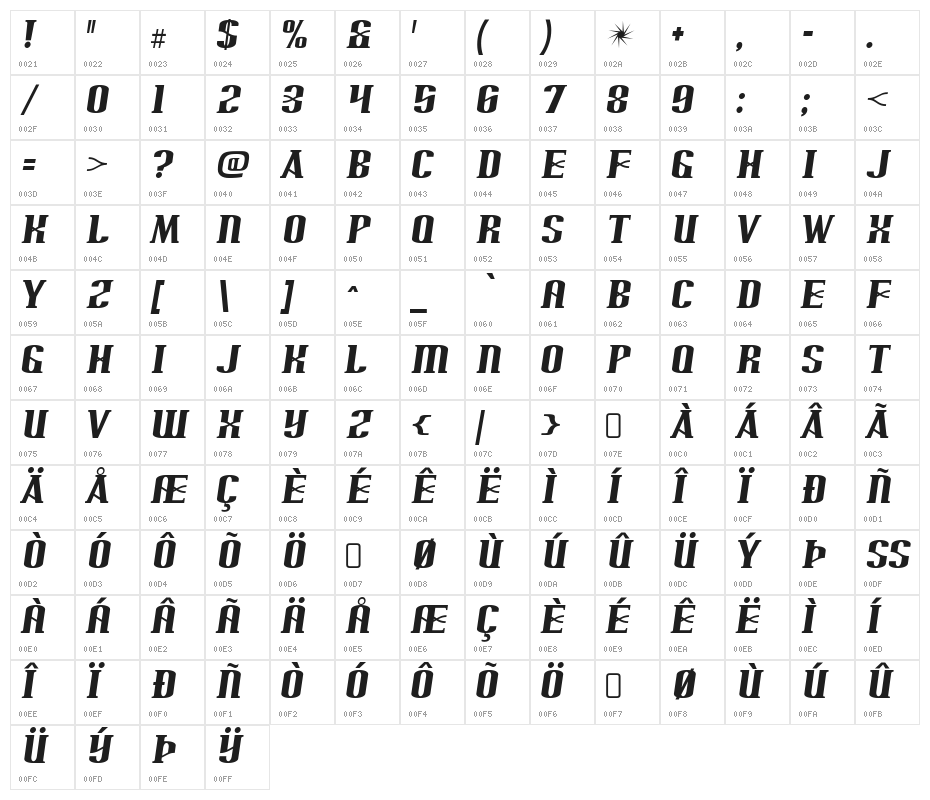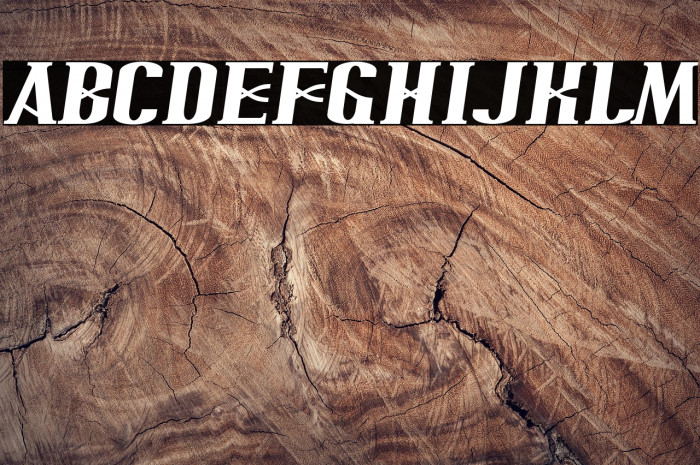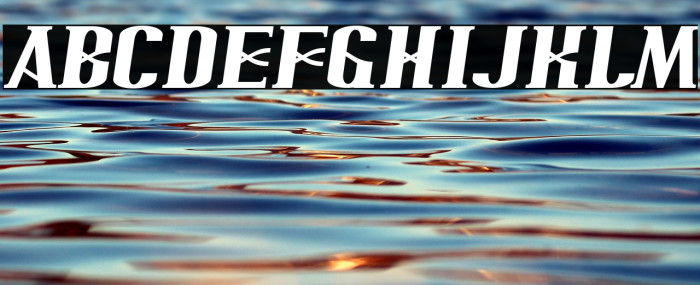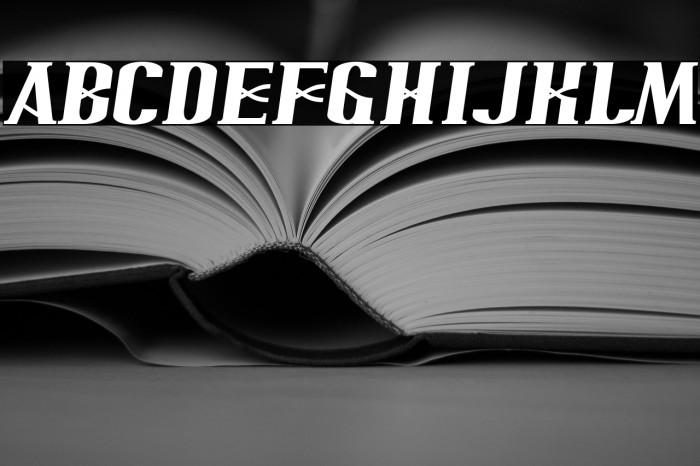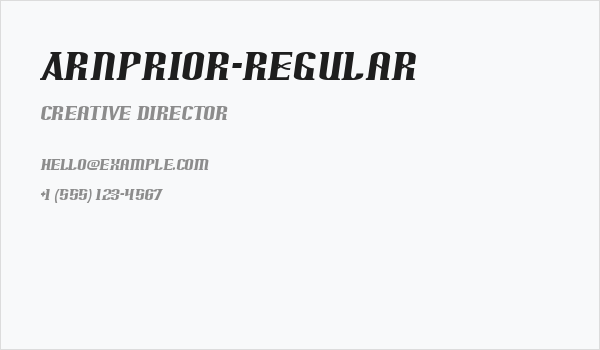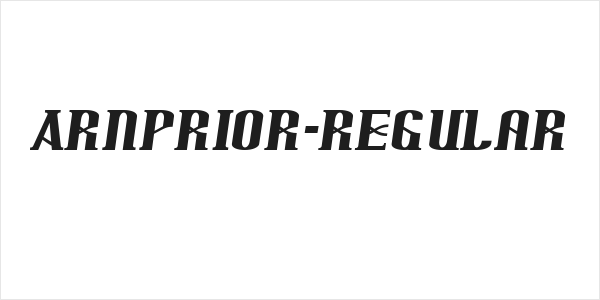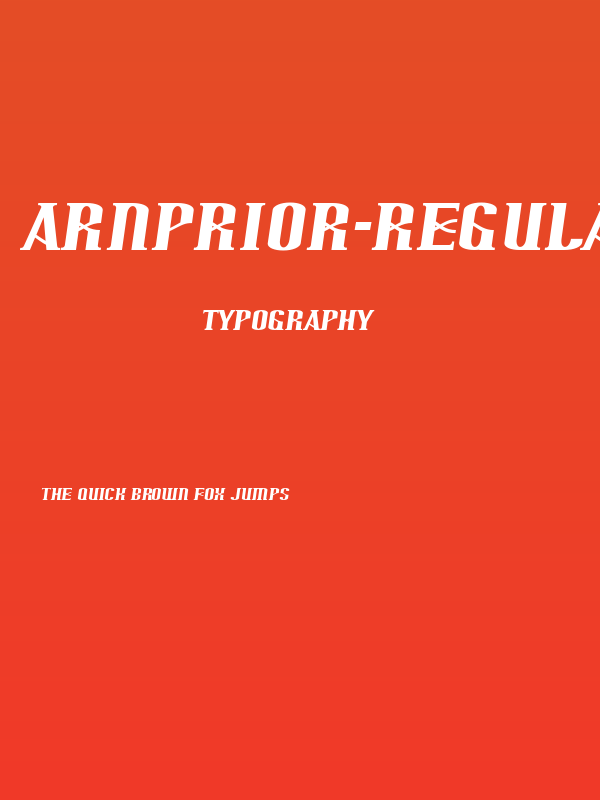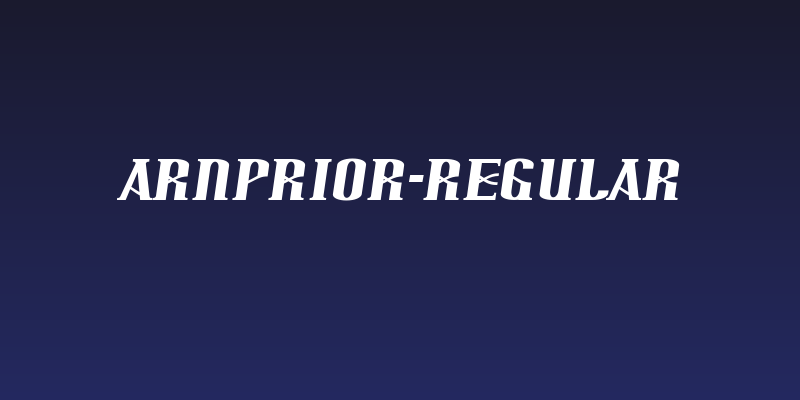
Arnprior-Regular Font
Arnprior-Regular Description
This font features a bold and dynamic style with a strong presence. The characters are designed with sharp angles and a slight slant, giving them a sense of movement and energy. The uppercase letters are particularly striking, with unique embellishments that add a decorative flair. The numbers and special characters maintain this bold aesthetic, ensuring consistency across all glyphs. The font's overall appearance is both modern and slightly retro, making it versatile for various design applications.
| Overall Style | Modern, Retro |
| Proposed Projects | Ideal for branding, posters, and headlines where a strong visual impact is desired. |